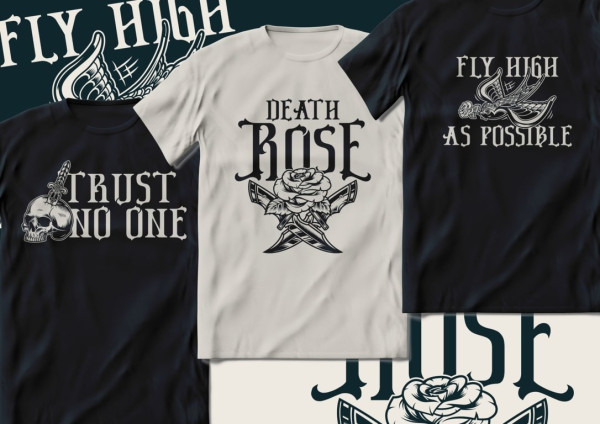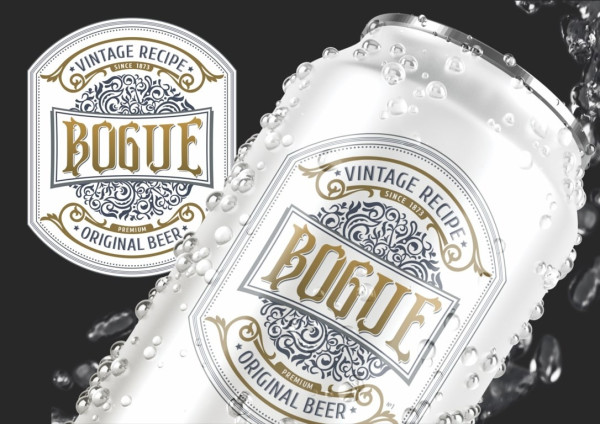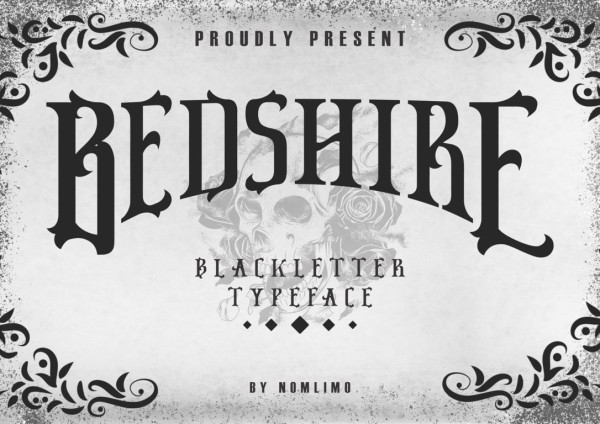
Bedshire Blackletter Font
Bedshire Blackletter Font is a contemporary Blackletter display font that showcases ornate alternates. Originally crafted as a display font for tattoo shops, drink labels, clothing brands, and more, Bedshire Blackletter offers surprises beyond expectations. The font is enriched with an abundance of alternate characters, captivating flourish elements, and decorative ornaments derived from selected capital letter forms. Immerse yourself in the world of Bedshire and let its distinctive charm captivate your designs.